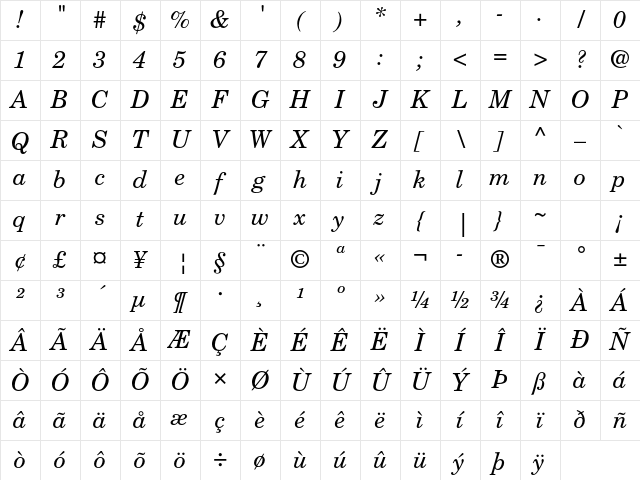
New Century Schoolbook LT Std Italic
Designer: Morris Fuller Benton
Design Context for New Century Schoolbook LT Std
New Century Schoolbook LT Std is a composed and adaptable typeface that performs quietly and consistently across a wide range of design contexts. The slanted form adds forward momentum and visual energy. Its slender proportions lend an understated elegance to any composition.
Pro Tip: Use New Century Schoolbook LT Std for emphasis, pull quotes, and subheadings where its slanted energy can add rhythm to the layout.